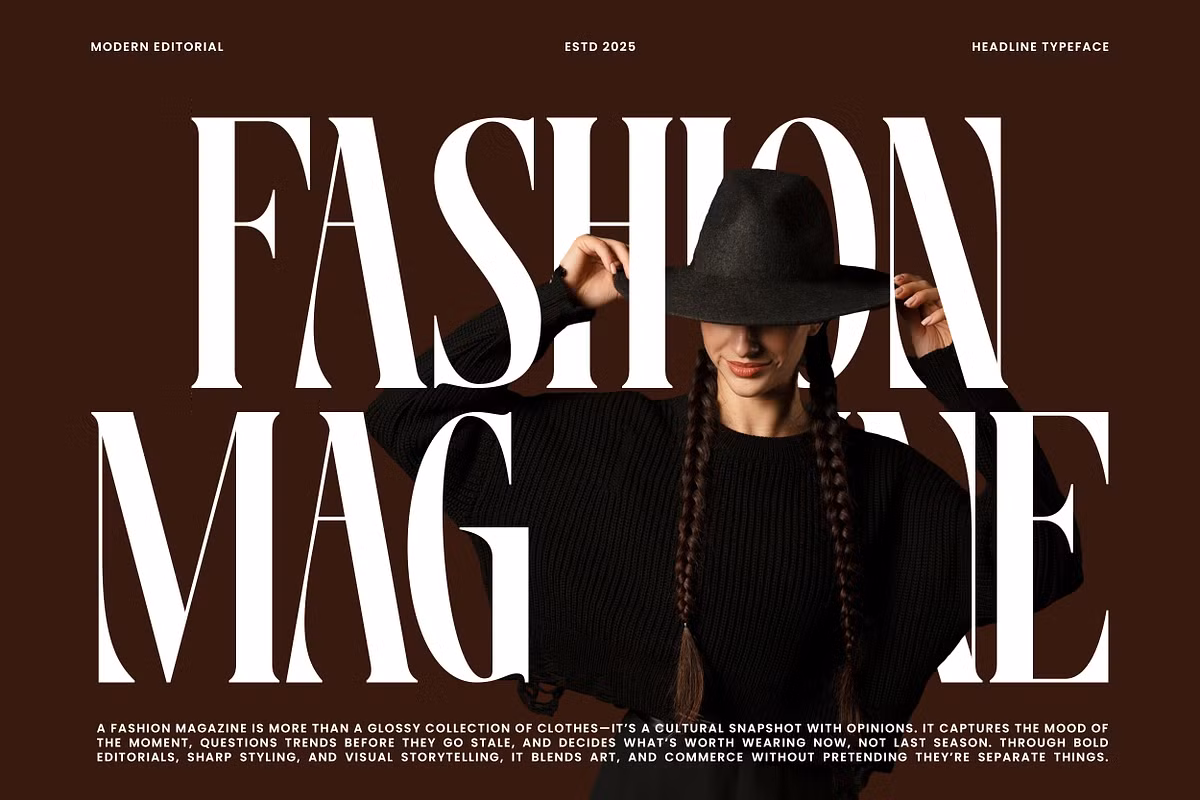
Gathero: Bold Modern Editorial Serif Typeface for Designers
Gathero is a serif typeface that catches the eye in the world of type. Gathero was made for the designers who want a look, in the work of the designers. Gathero mixes the look of serif fonts with design ideas. Gathero works well for the fashion magazines the brand logos and the editorial work where the letters must grab the eye and send an idea before the reader looks at the words.
Design Style of Gathero
I see that the design of Gathero draws from the lines and clear layouts, in fashion magazines and modern branding. I notice that Gathero uses letters and high contrast to make the look strong and easy to read and Gathero adds shaped curves that make the look neat. I like that Gathero does not hide from making a statement; Gathero embraces a look that’s clean and nice.
Balancing serif details, with proportions makes the Gathero typeface look right for today’s design world. The Gathero typeface works in print and, on screens. The Gathero typeface grabs attention wherever the Gathero typeface appears. The Gathero typeface lifts the look of any project.
Character Sets and Features
I think one of the aspects of Gathero is the full character set of Gathero. The character set includes:
- All Uppercase Characters: I use All Uppercase Characters for headlines. All Uppercase Characters also work for branding materials.
- Numerals and Punctuation: Essential for complete typographic functionality.
- Alternates and Ligatures: Let me shape the look of the text. Alternates and Ligatures give me the flexibility to build the text layouts.
- Multilingual Support: Gathero is built to serve the audience. Gathero gives capabilities. Gathero does not lose Gatheros unique personality.
Use Cases for Gathero
Gathero is an incredibly versatile typeface, suitable for a range of design applications. Here are some ideal use cases:
- Headlines: Gathero has a look. I have tried Gathero for headlines, in the magazines the blogs and the websites. Gathero makes the headlines catch the reader’s eye away.
- Fashion Layouts: Fashion Layouts have a design that matches the fashion branding. Fashion Layouts work well with the brand. Fashion Layouts create lookbooks and promotional materials that stand out.
- Luxury Branding: Brands that want a high end image can turn to Gathero for logos, business cards and packaging. Luxury Branding needs a style and Gathero supplies that visual style. I have used Gathero for luxury branding. It works well.
- Posters: The strong look of Gathero makes Gathero ideal, for the posters and advertisements. The typography matters.
- Editorial Projects: I use Gathero for articles and books. Gathero improves the reading experience, with strong features.
I see that in each scenario Gatheros ability to show confidence and sophistication helps the design. Gatheros ability lifts the design quality.
Pairing Suggestions for Gathero
When you pair Gathero with typefaces you should pick the matching fonts. The fonts should bring out Gatheros look. The fonts should not drown Gatheros style. Here are some pairing suggestions:
- Gotham: In my experience Gotham pairs with Gathero. Gotham gives a contrast that works well for the body text.
- Montserrat: Montserrat has shapes and a lot of versatility. I think those qualities balance the elegance of Gathero. The mix of Montserrat and Gathero works well for design projects.
- Raleway: Raleway is a sans serif font. I have used Raleway with Gathero. I find that Raleway adds a light feel to the subheadings and the body text. Raleway works with Gathero when you need a look, for the subheadings or the body text. Raleway can be a match.
- Open Sans: Open Sans is a popular sans serif typeface. Open Sans gives the legibility. Open Sans works with Gatheros headlines. Open Sans and Gatheros bold headlines together create the look.
When you choose typefaces that fit Gathero the typefaces let you make designs that look good and keep the viewer interested. The designs then tell the message clearly.
Gathero is a serif typeface, for the work. Gathero feels confident, elegant and bold. Gathero has a design, a set of characters and many uses. Gathero is a tool, for any designer who wants the visuals. If you work on fashion layouts, luxury branding or editorial projects Gathero gives the base that lets your designs stand out. I have used Gathero. I find Gathero works well. Use Gathero to lift your design work.